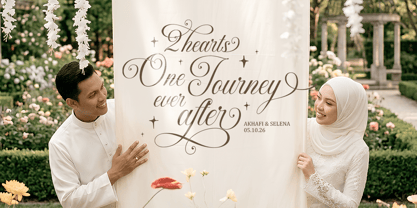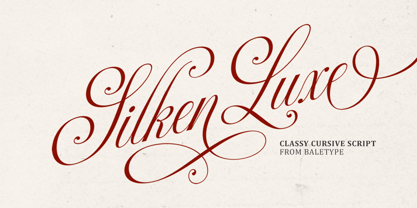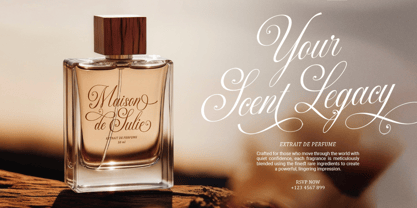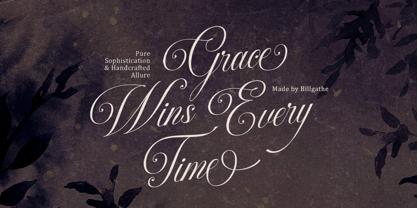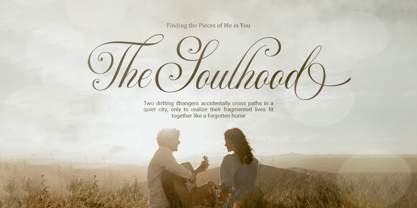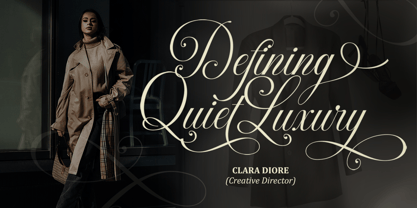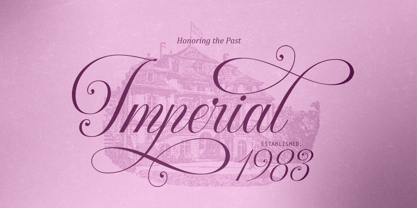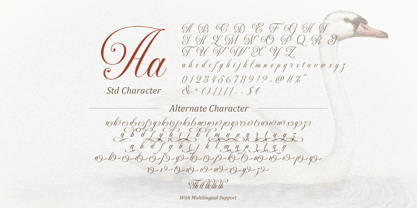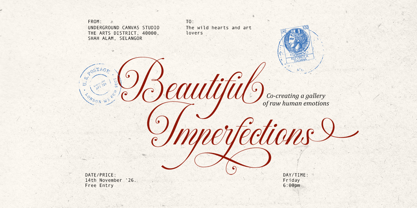
Silken Luxe
by Bale Type
The Silken Luxe Font Family was designed by Dzikrul Aulia and published by Bale Type. Silken Luxe contains 1 styles. More about this family
Introducing Silken Luxe, a luxurious script font crafted to bring elegance, romance, and sophistication to your designs. Featuring a beautiful collection of stylish alternates, Silken Luxe gives you the freedom to create a refined and graceful look with ease. Its flowing letterforms and sophisticated character make it perfect for wedding invitations, logos, branding, quotes, stationery, packaging, and other projects that call for a touch of luxury. Whether you're creating something timeless and romantic or modern and elegant, this font adds a polished and distinctive feel to every design. With multilingual support included, this versatile font is ready to elevate creative projects for audiences around the world.
Designers: Dzikrul Aulia
Foundry: Bale Type